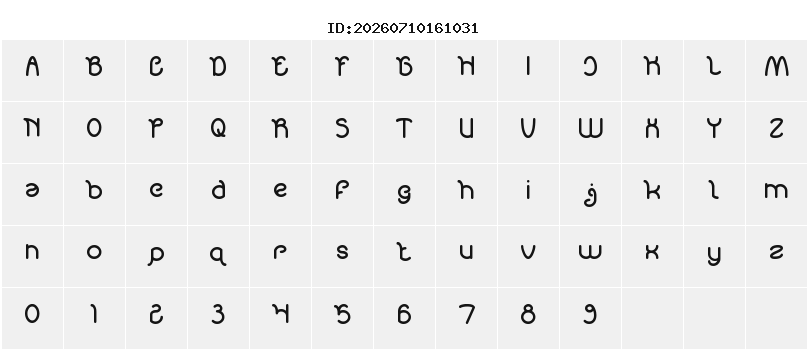
garden of rose Preview
• Font Name: garden of rose
• Full Font Name: garden of rose
• Version: Version 1.00 April 27, 2015, initial release
About garden of rose.ttf
garden of rose.ttf is a modern, elegant sans-serif font designed for ultimate readability and visual harmony. Perfect for branding, headlines, web design, and print materials.